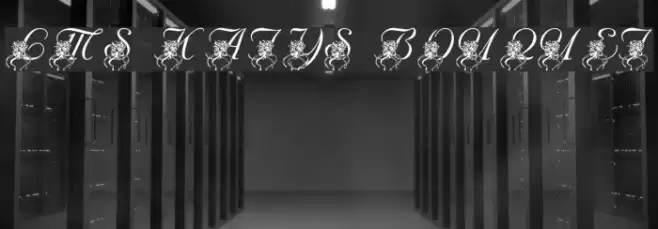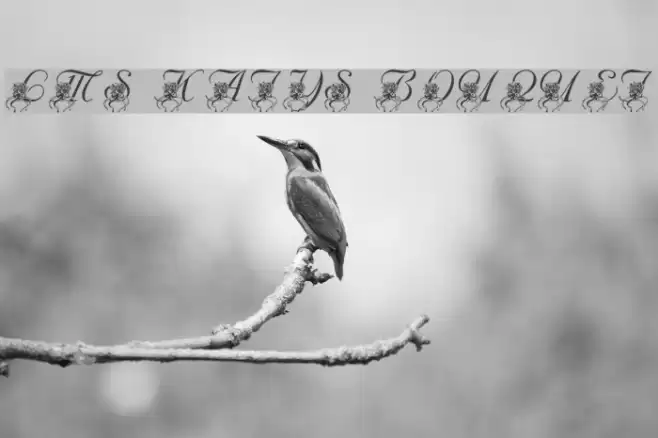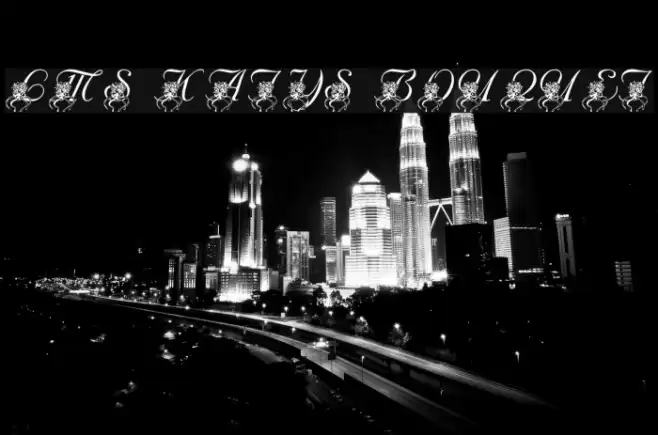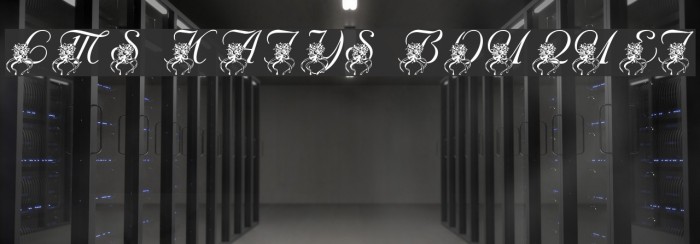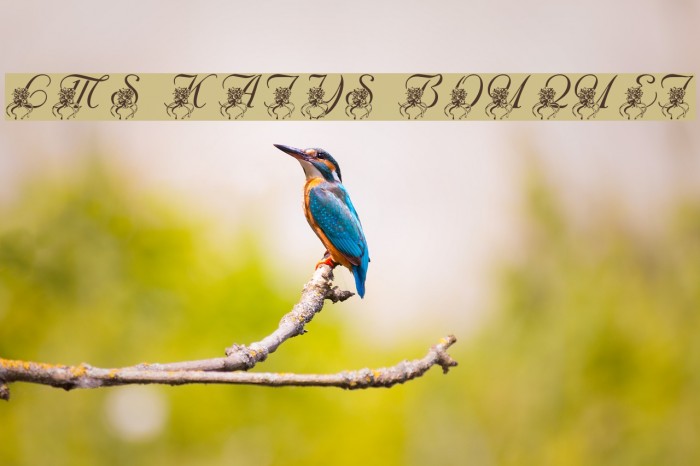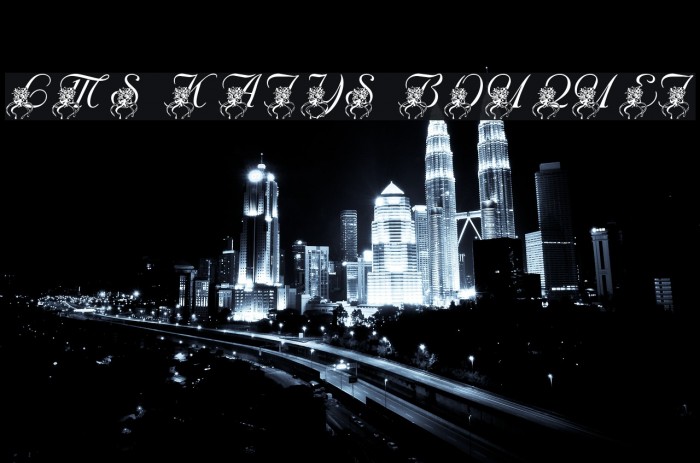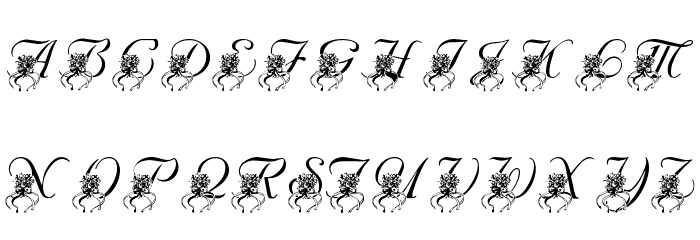
LMS Katy's Bouquet Font
LMS Katy's Bouquet Description
This font is a decorative and ornate typeface that features elegant, flowing script letters adorned with intricate floral designs. Each character is embellished with a bouquet motif, adding a touch of sophistication and artistry. The uppercase and lowercase letters maintain a consistent style, with graceful curves and flourishes that enhance their visual appeal. The numerals are similarly styled, ensuring a cohesive look across all characters. This font is ideal for projects that require a touch of elegance and creativity, such as wedding invitations, greeting cards, or branding for luxury products.
An ornate script font with floral embellishments, perfect for elegant designs from Uncategorized fonts.
- Proposed Projects: Ideal for wedding invitations, luxury branding, greeting cards, and decorative prints.
- Use Case: Headlines, Logos, Invitations